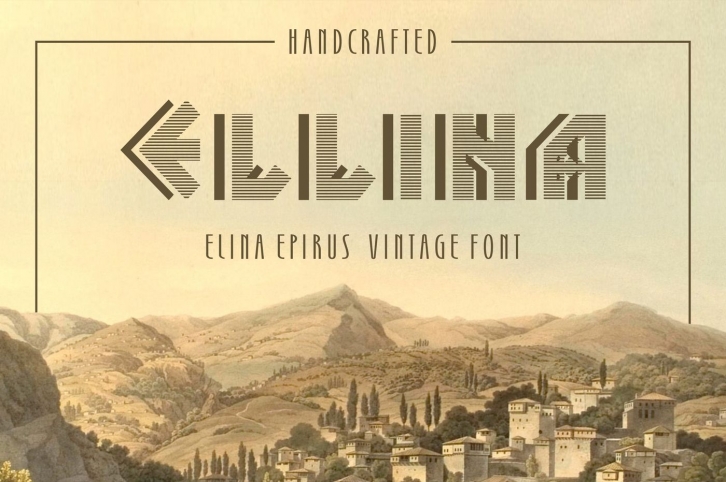
Elina was an ancient Greek town in the region of Epirus. The font is based on the ancient Greek design of the writing system and their ancient alphabet. It is well known unique style of fonts family. As it was used from ancient times usage of it is worth to say that incredibly much more than any other else. Constructed by the old historical Greek alphabet characters with additional stylized shadows and outlined with striped lines this font is ideal for your design works in mostly any subject or theme.